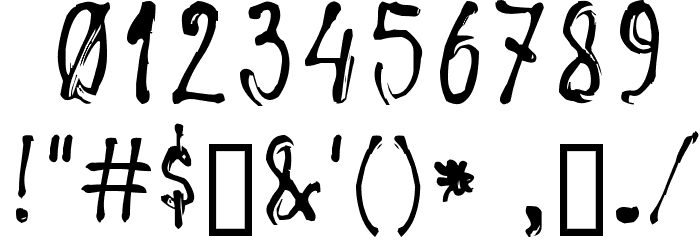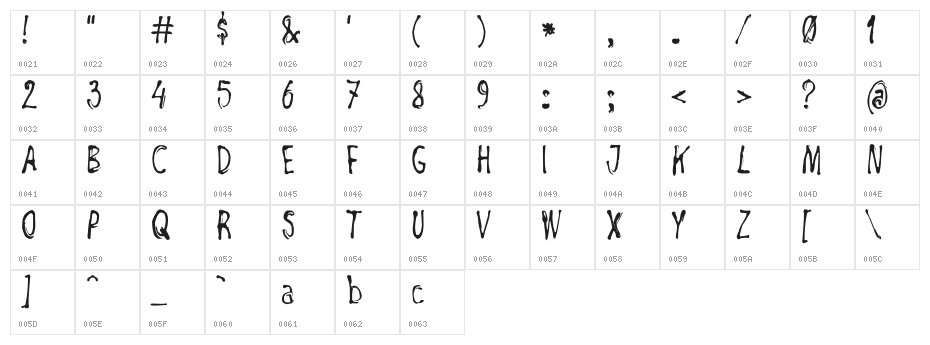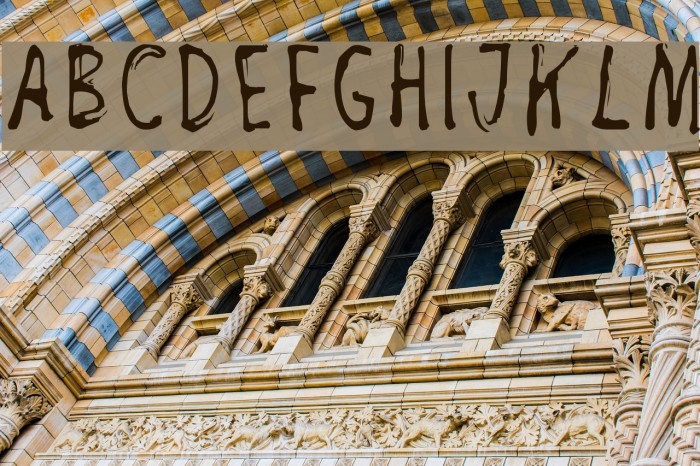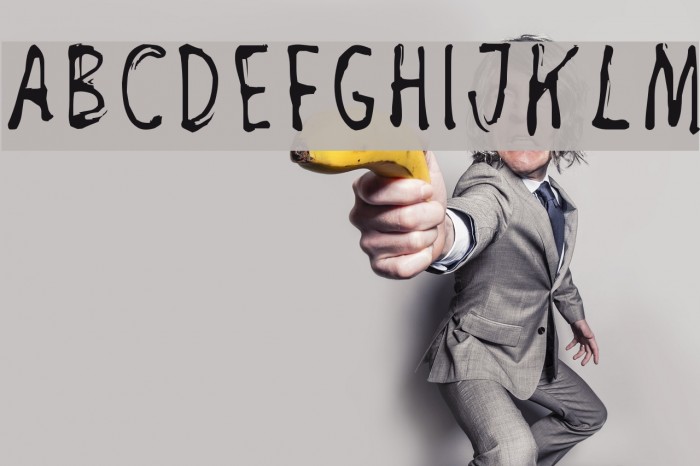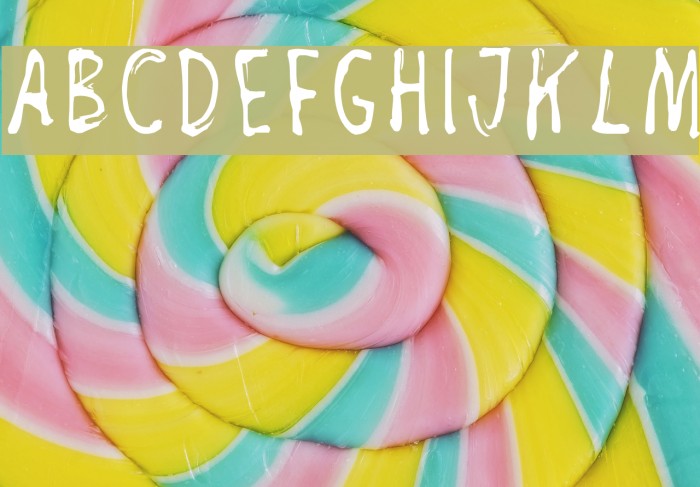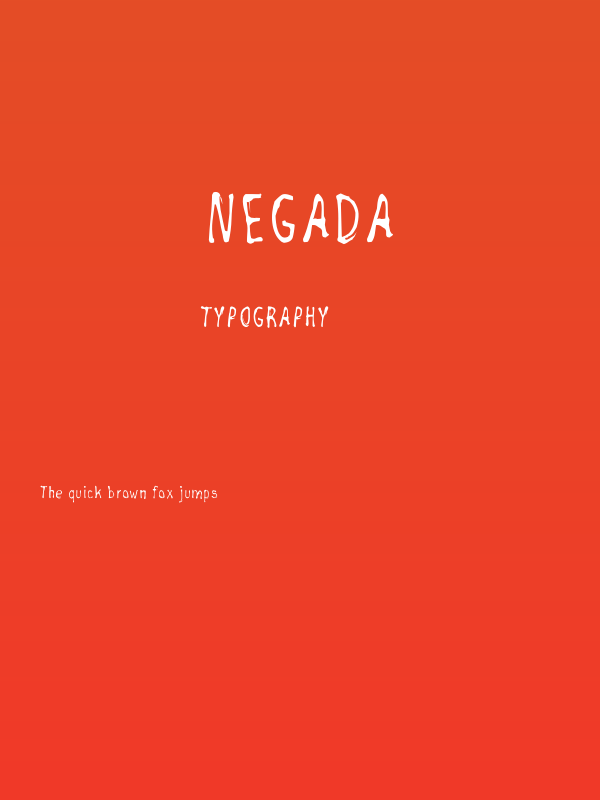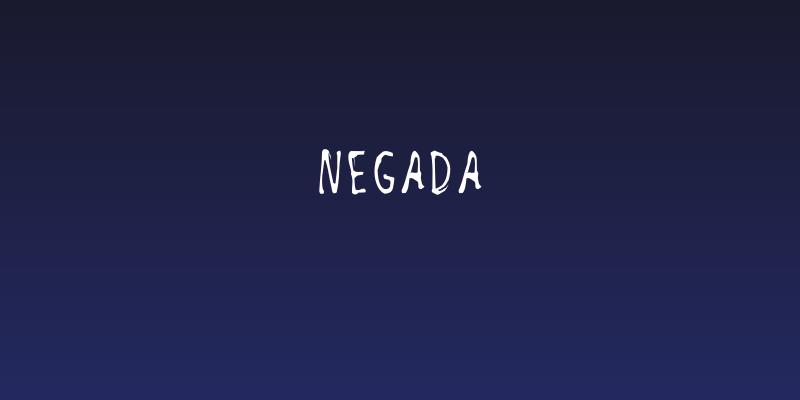
Negada Font
Negada Description
This font exhibits a unique, artistic style with a hand-drawn appearance. The letters are irregular and feature a playful, almost whimsical design. The strokes are uneven, giving each character a distinct personality. This font combines elements of both script and decorative styles, with some letters showing a brush-like texture. The overall look is dynamic and expressive, making it suitable for creative projects that require a personal touch. The numbers and special characters maintain the same artistic flair, ensuring consistency throughout the typeface.
| Overall Style | Artistic, Whimsical, Hand-drawn |
| Use Case | Logos, Posters, Creative projects |
| Proposed Projects | Ideal for creative projects such as greeting cards, posters, children's books, and artistic branding. |